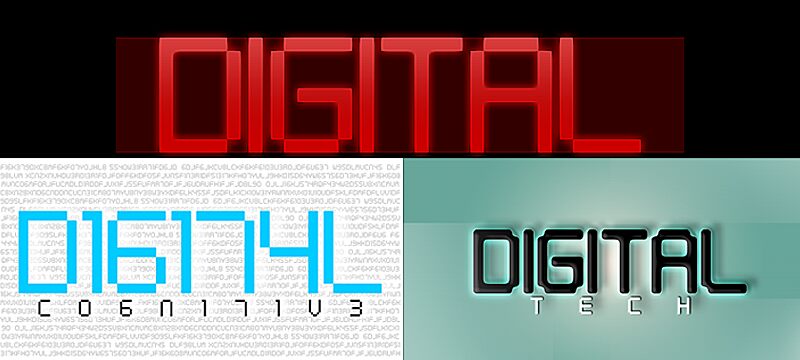
Digitaltech by Carlos Matteoli is a free futuristic display font with broad, rounded letters and a strong electronic character. Deep notches, squared openings, and softened corners make the forms resemble custom hardware labeling.
Game interfaces are its most convincing setting, especially title screens and control panels where lettering can resemble molded buttons. The same rounded geometry suits electronic music posters, technology branding, and sci-fi packaging, with repeated cutouts that echo circuit traces, vents, and interface icons.